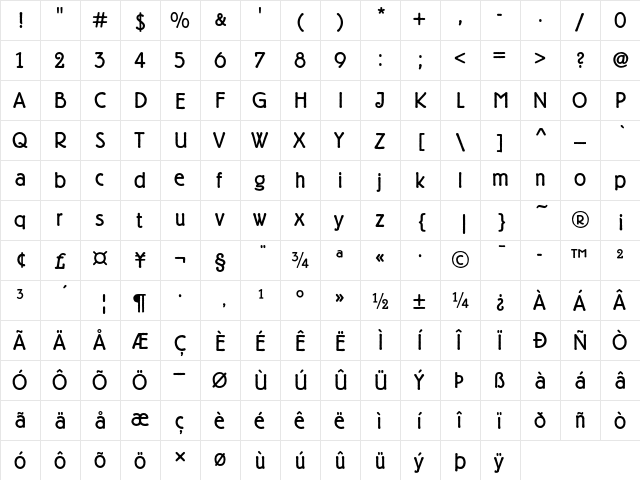
Berliner Grotesk D Light Font Preview
Berliner Grotesk D Light
Design Context for Berliner Grotesk D Typeface
Berliner Grotesk D takes a clean, functional approach — its unadorned letterforms prioritise legibility and work reliably across screen and print environments. Its slender proportions lend an understated elegance to any composition.
Ideal for fashion and beauty branding, minimal editorial layouts, and premium digital experiences.
Font Pairing: Pair Berliner Grotesk D with a medium or bold serif for headlines — the weight contrast creates an elegant, high-end feel.
Pro Tip: Avoid using Berliner Grotesk D at very small sizes where its slender strokes can disappear. It performs best at medium to large sizes.